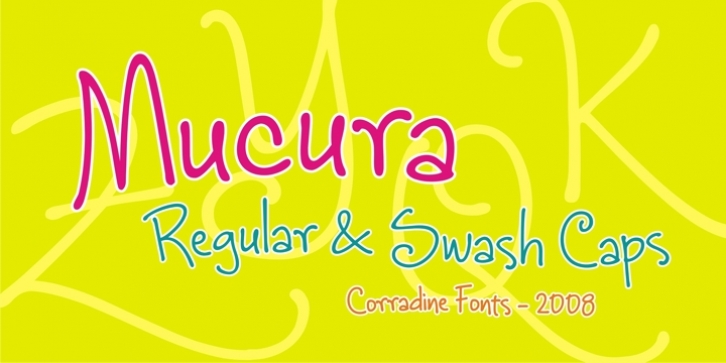
Manuel Eduardo Corradine
Corradine Fonts
Based in Manuel Corradine’s handwriting,
Mucura
is a very spontaneous font.
It could be used in almost any informal project.